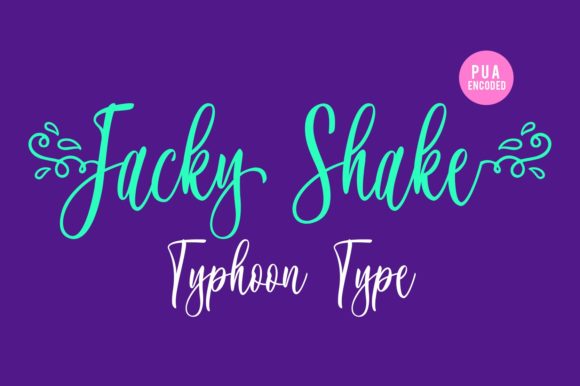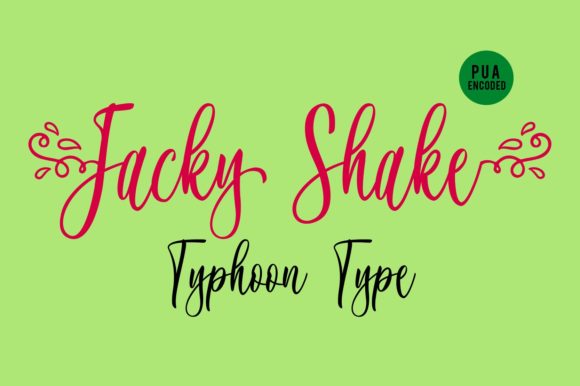
Jacky Shake Font
Jacky Shake is a beautiful handwritten font. Its casual charm makes it appear wonderfully down-to-earth, readable and, ultimately, incredibly versatile.
Use Jacky Shake to bring any DIY project to life!